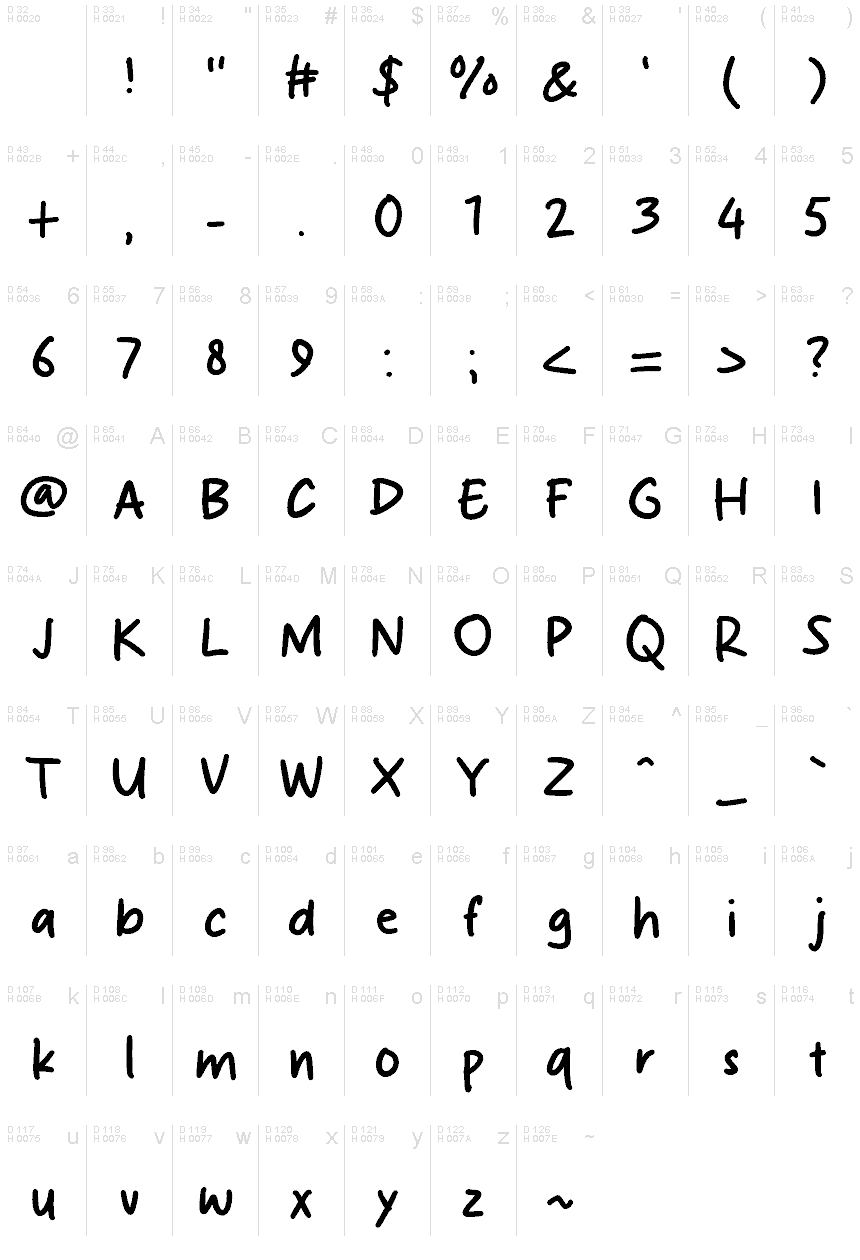
Enjoy Life
Enjoy Life font is a handwritten typeface by MJType. Its casual style gives off relaxing and happy vibes suitable for multiple projects and different ages. Enjoy Life was influenced by informal signature styles, cheerful doodles, and artistic hand-drawn lettering. It is approachable, organic, and naturally beautiful with each character offering a strong presence.
This high-quality free handwritten font works well in original ways as well as with its pairings of choice. Use it in branding projects related to clothing brands, posters promoting fun events, product packages of all sorts, quote artworks made for print or social media…and more!